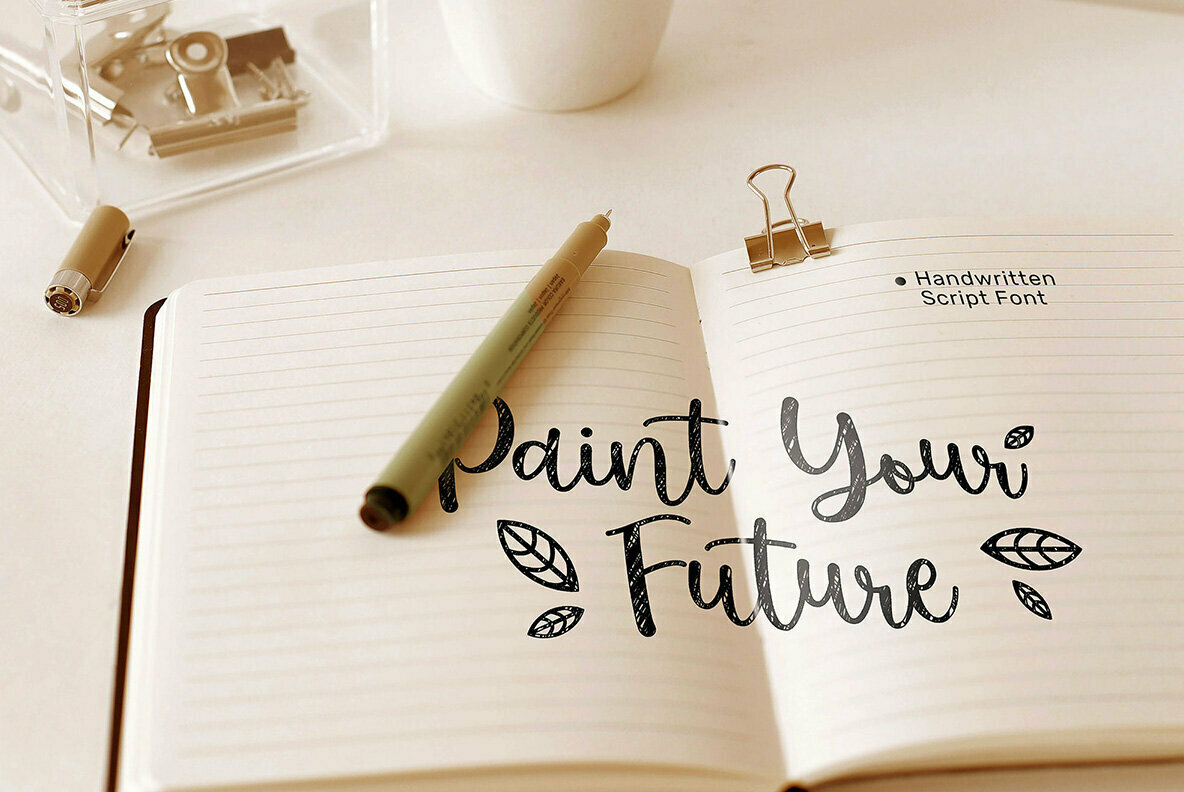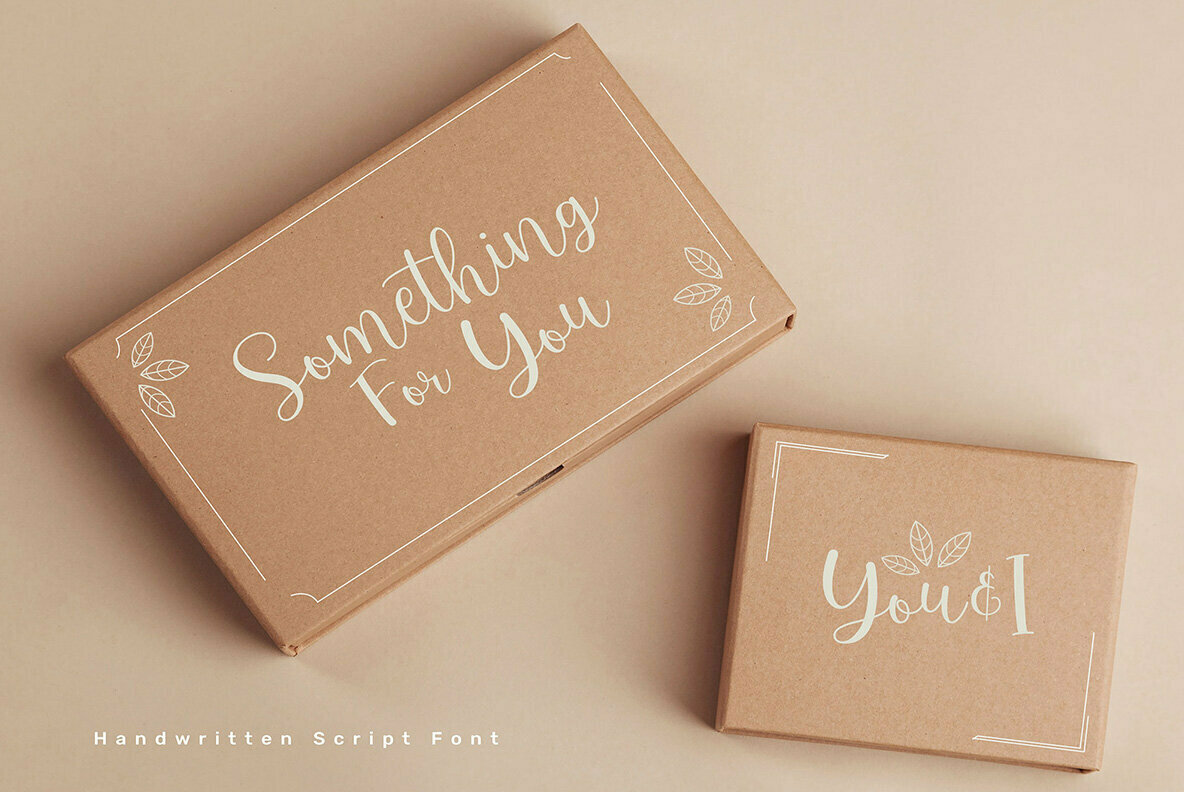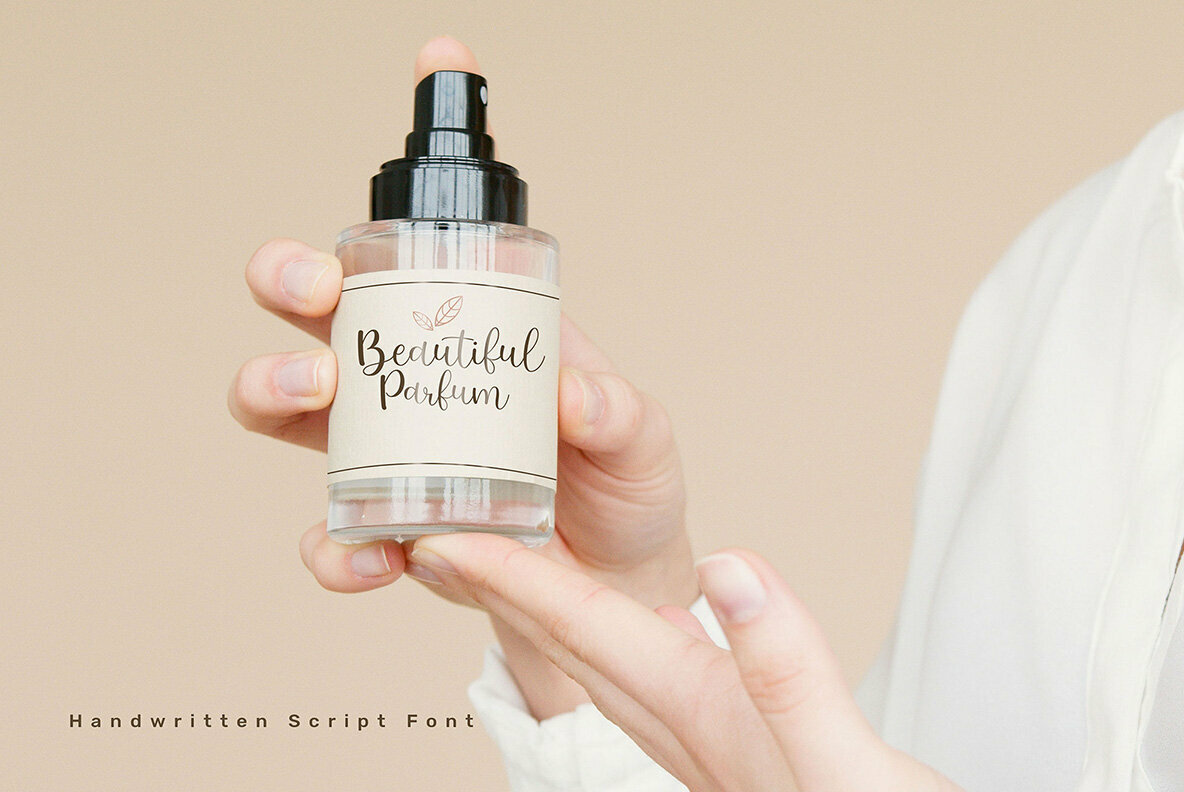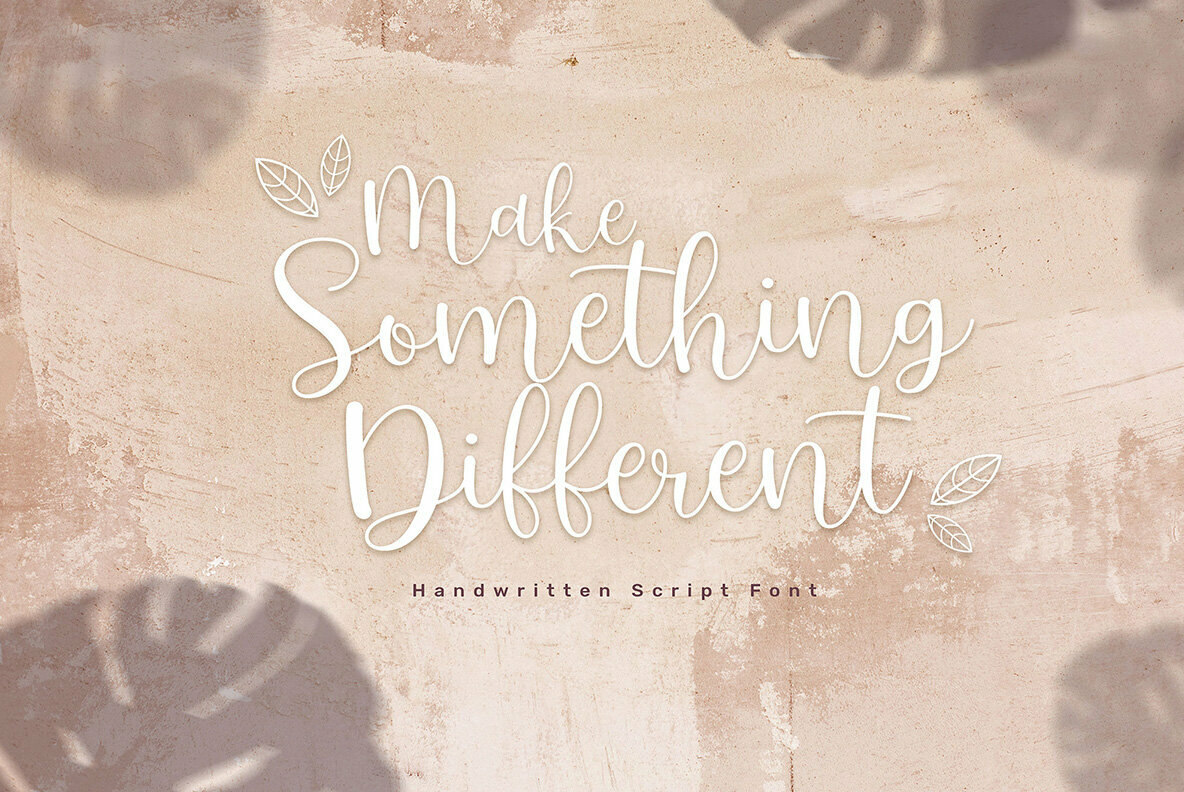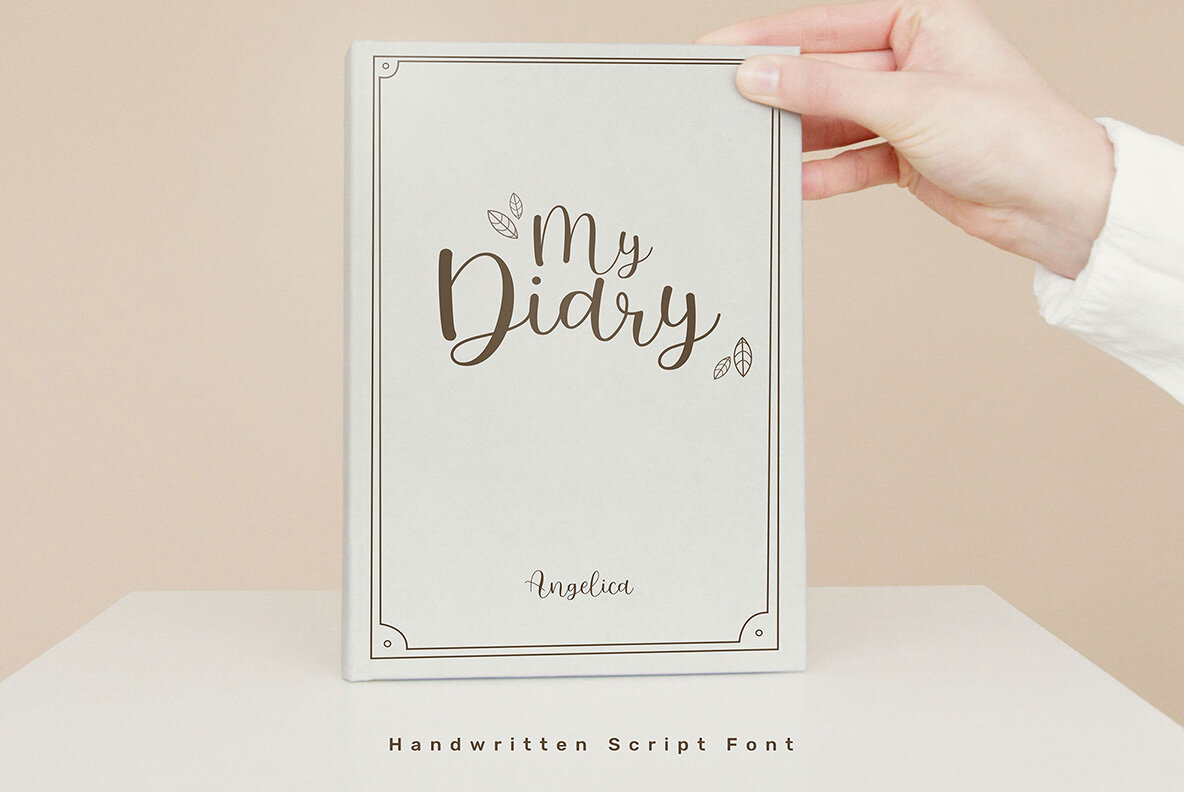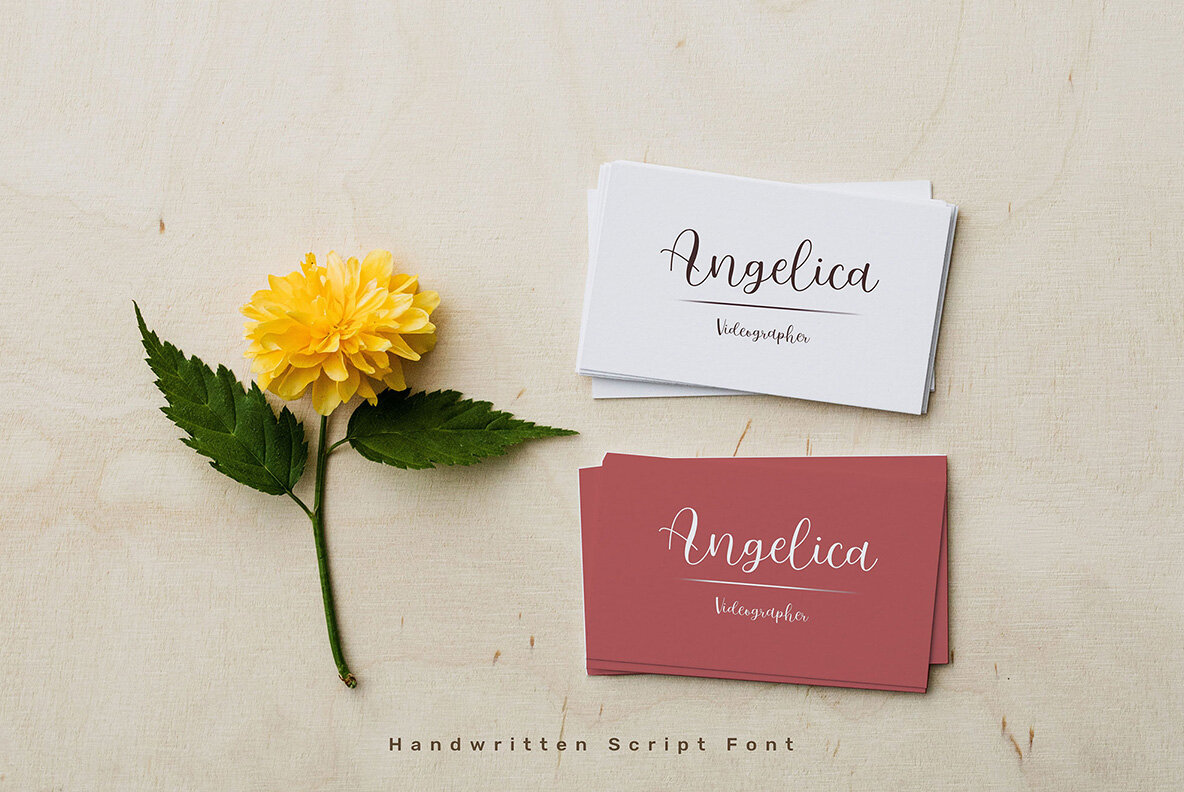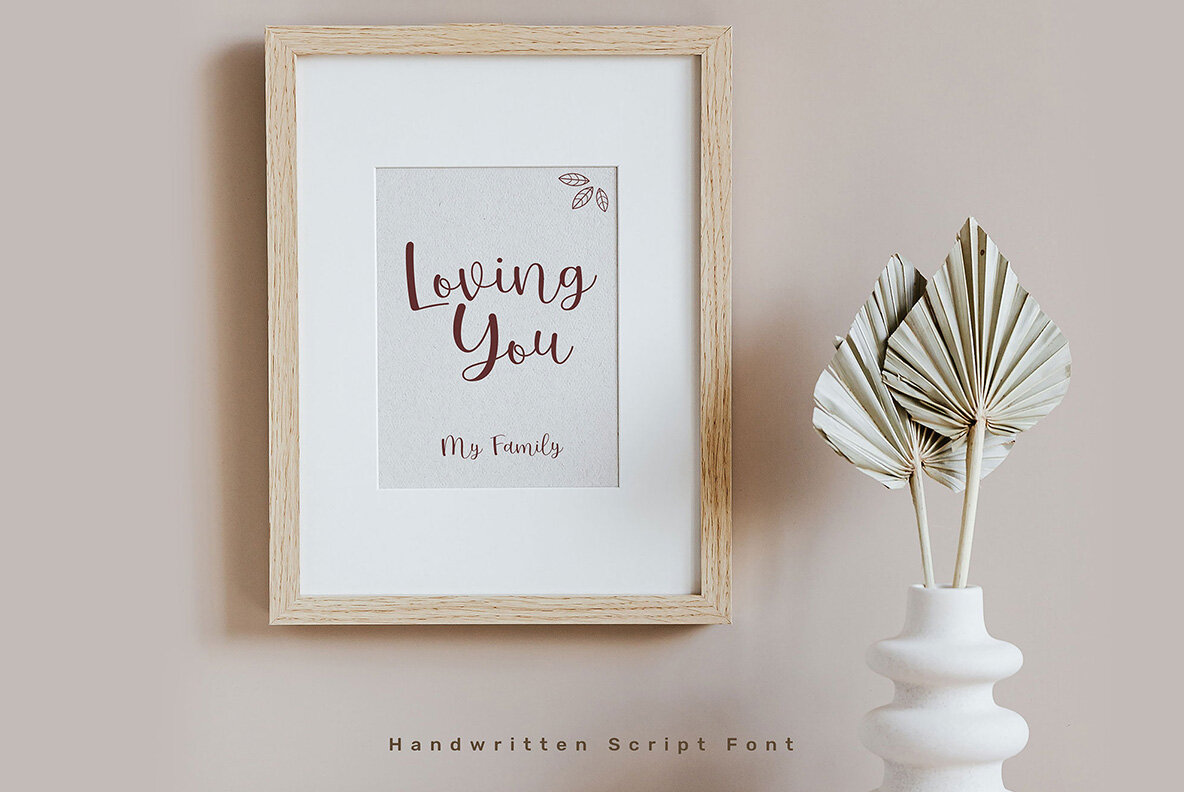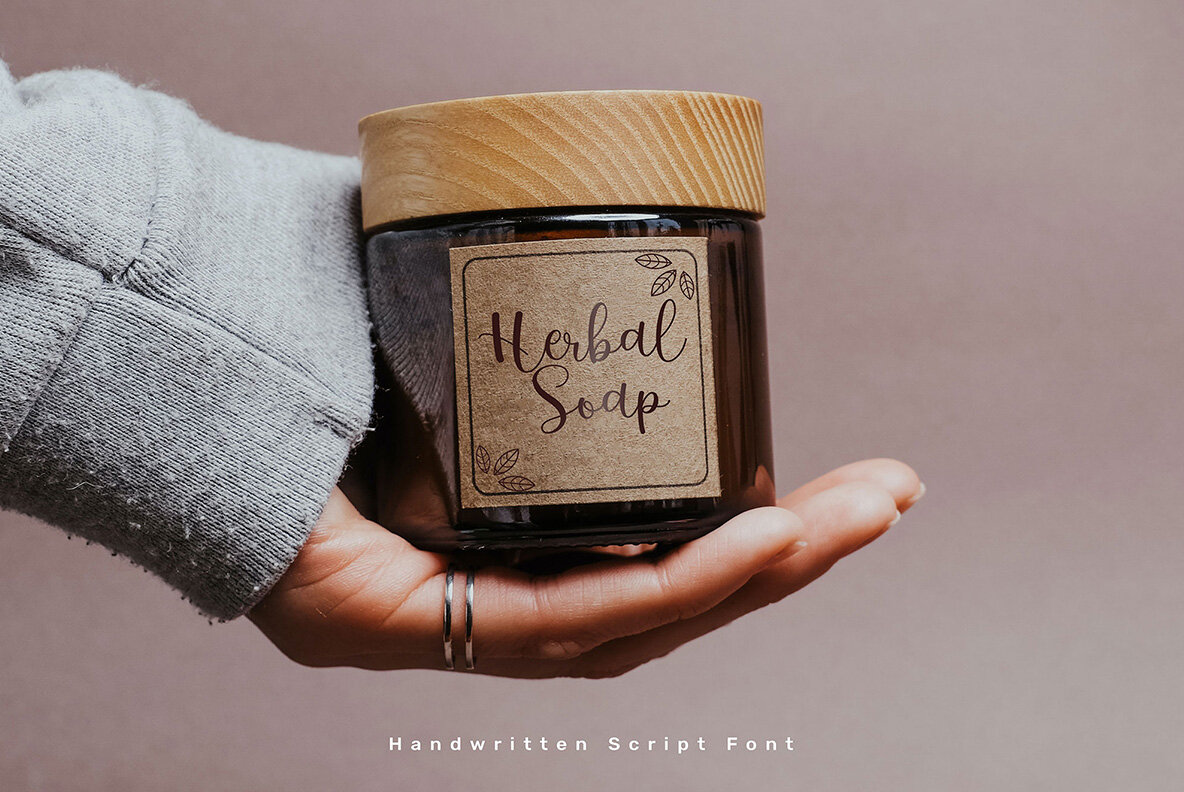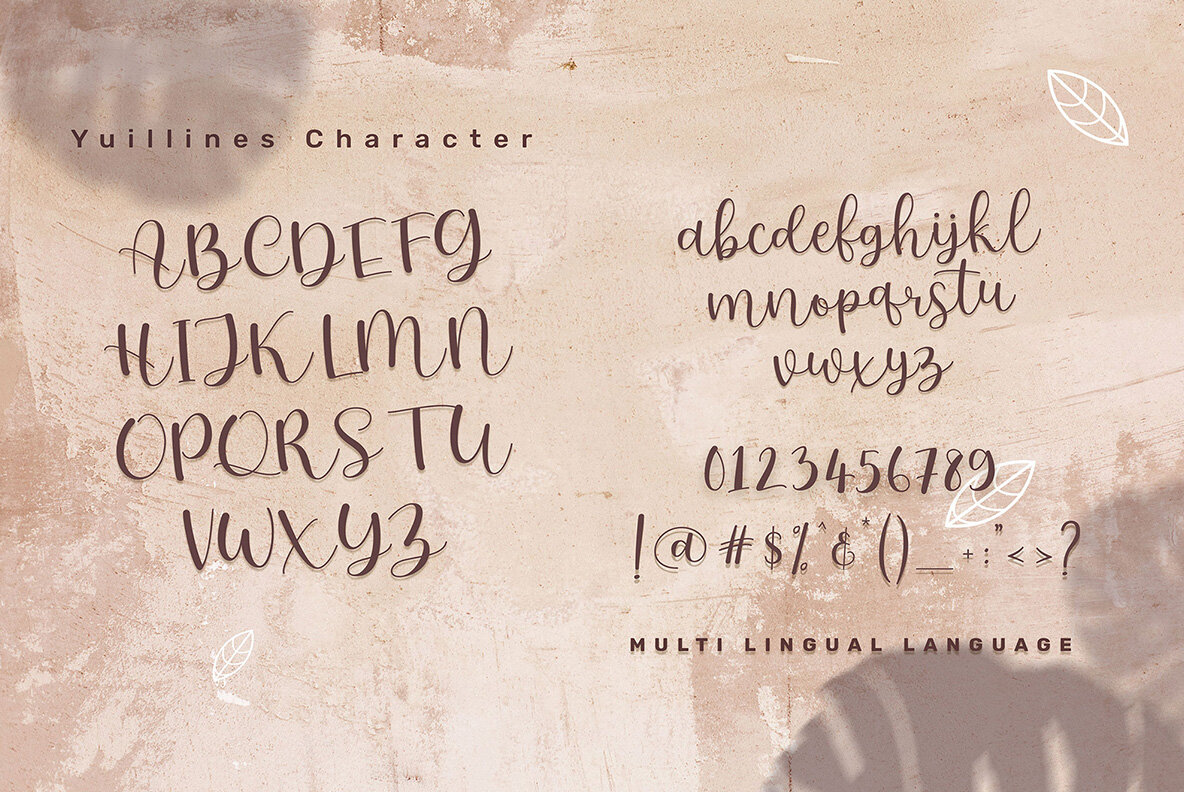
Yuilines Font
Yuilines
Yuilines Script is a sophisticated font designed to embody elegance and style. Its slender form and friendly curves lend a feminine touch, making it ideal for fashion and e-commerce brands, trend blogs, and businesses aspiring to a classy, chic appearance.Yuilines Script: Elegance in Typeface